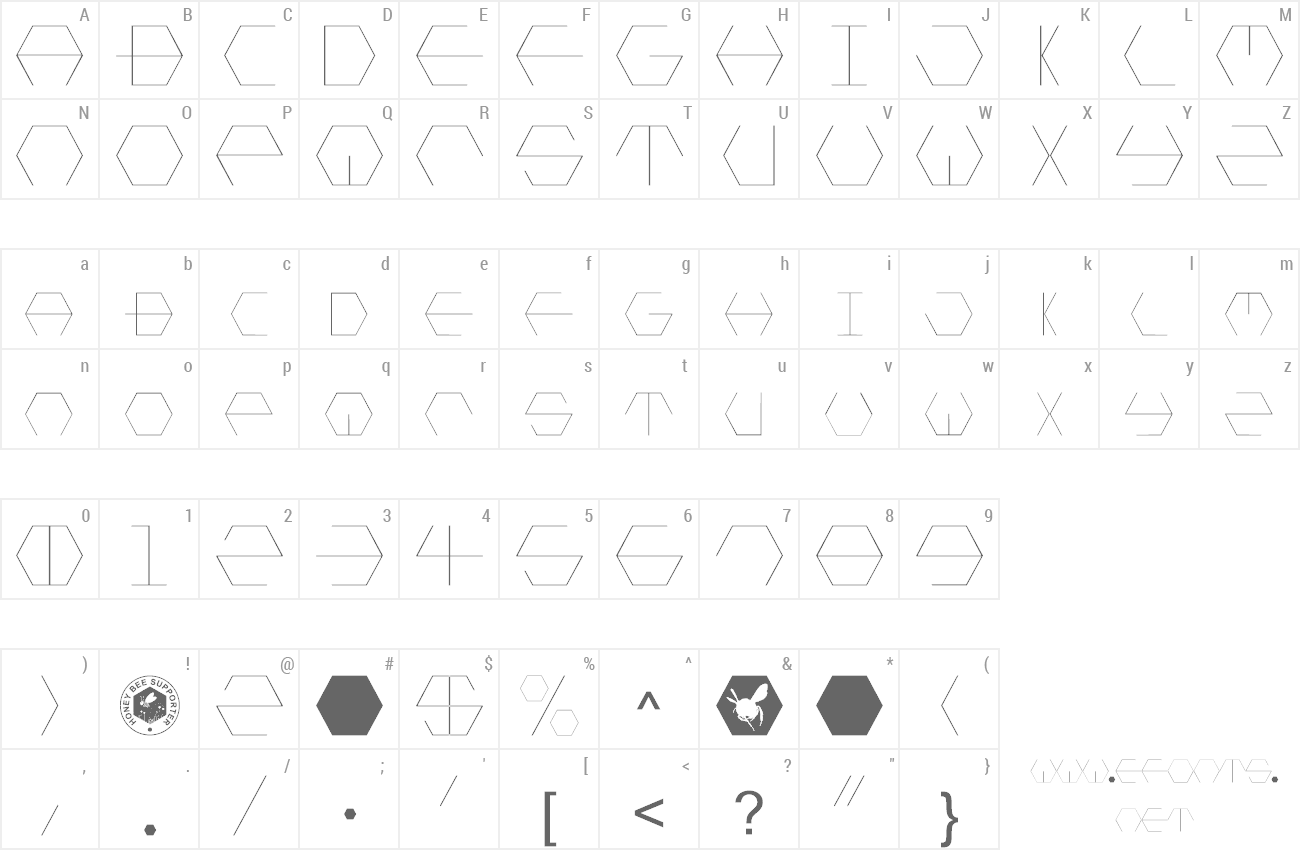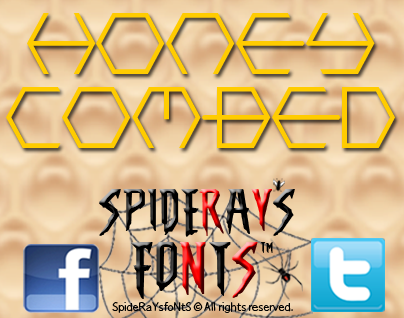
Originally created for the shear enjoyment of playing with the Hexagonal Honeycombed Shape and what I could do with it. I hope you all enjoy using it as much as I did creating it. Several individual letters like the K,I,X don't offer themselves to the shape very well but when joined make the Honeycombed shape, created to raise money to help save the Honeybee! Since then, I have been asked many times to create a full version for commercial use. For the fully kerned OTF embeddable commercial version of this font please visit my Etsy Store @ http://etsy.me/2dWt1vb |